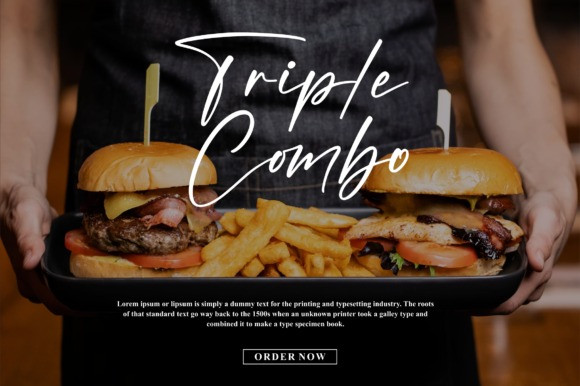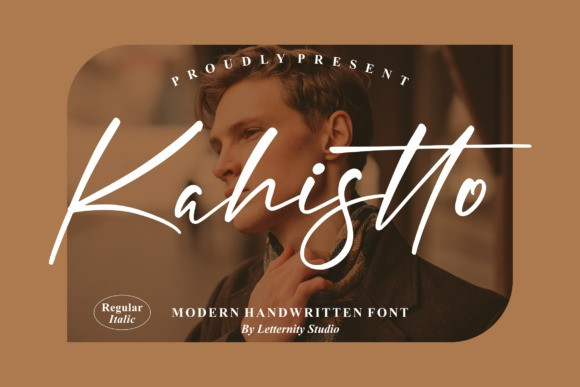
Kahistto Handwritten Font
Kahistto Handwritten Font is a delicate and relaxed script font. Fall in love with its incredibly versatile style and use it to create gorgeous wedding invitations, beautiful stationary art, eye-catching social media posts, and much more!